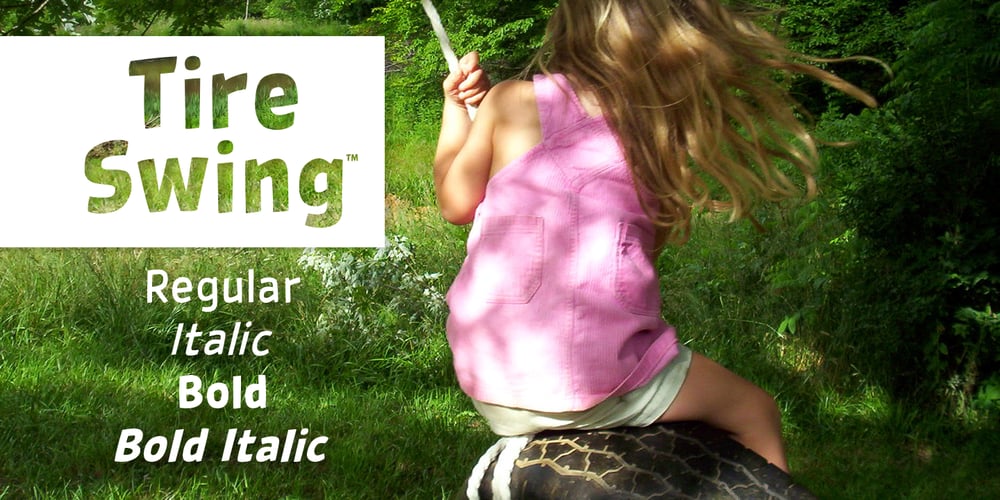
Tire Swing BB Font Family was designed by Nate Piekos and published by Blambot. Tire Swing BB contains 4 styles and family package options. Tire Swing BB is lighthearted without being silly. It’s whimsical without being cliche. It’s a body copy font, or great for headers, and includes lots of European characters.